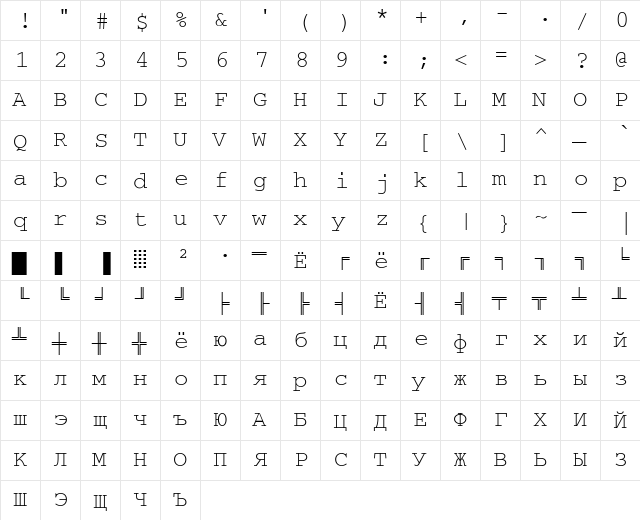
CourierKOICTT Regular Font Preview
CourierKOICTT Regular
CourierKOICTT Regular Font Details
Design Context for CourierKOICTT Typeface
CourierKOICTT brings the precise, column-aligned rhythm of monospaced typography to designs that value technical clarity and systematic order.
A natural fit for code editors, technical documentation, developer-focused branding, and terminal-inspired UI.
Pro Tip: Pair CourierKOICTT with a proportional sans for UI contexts where code-style labels and regular body copy need to coexist.